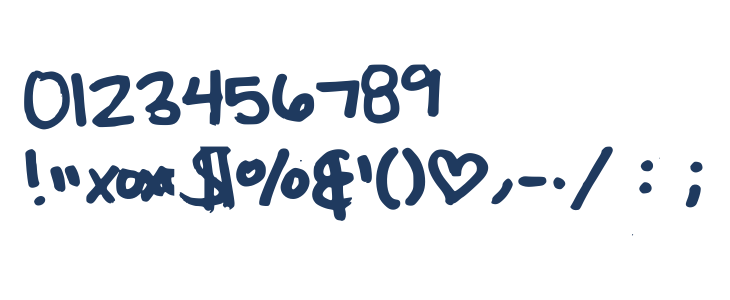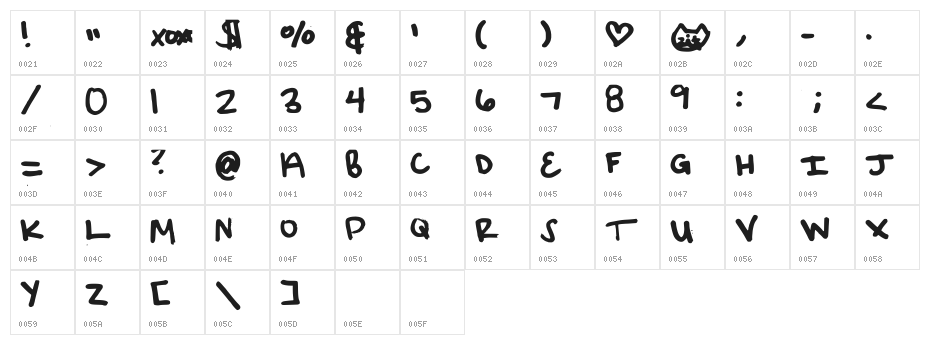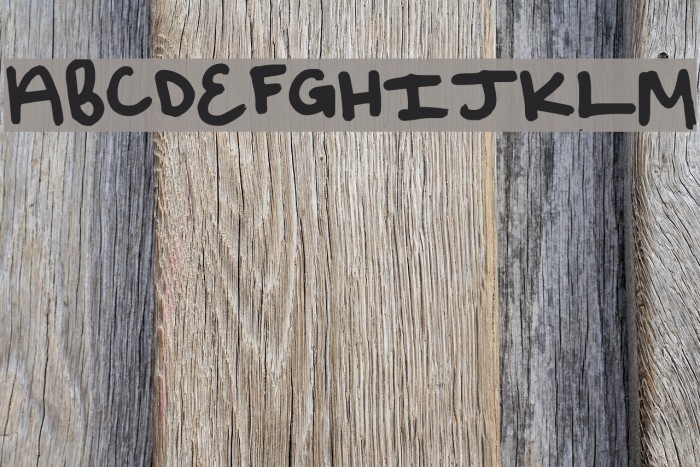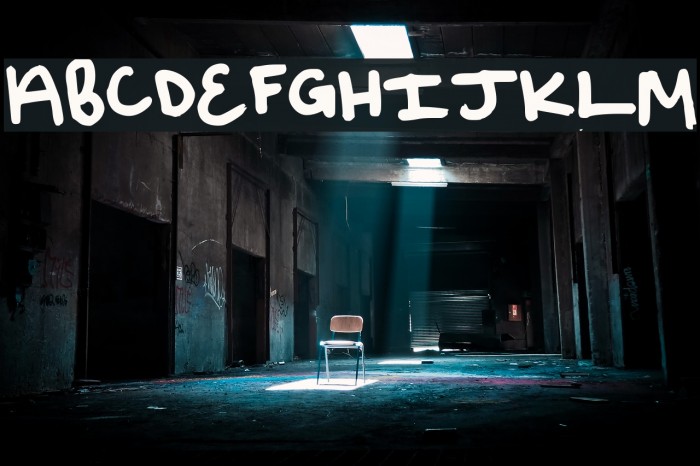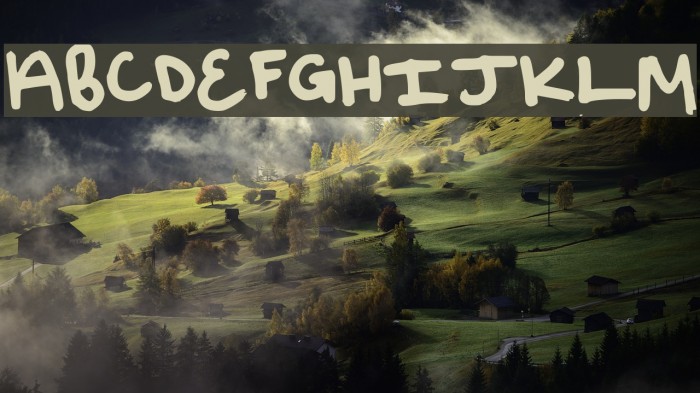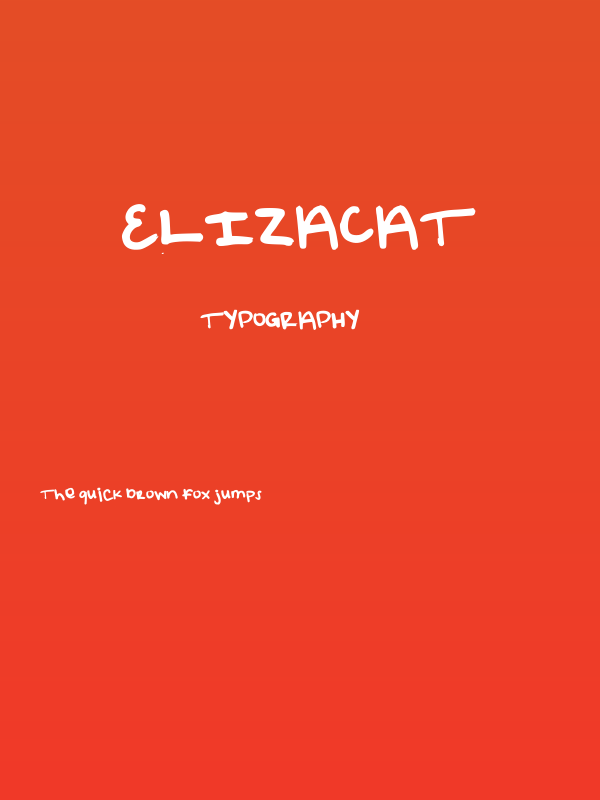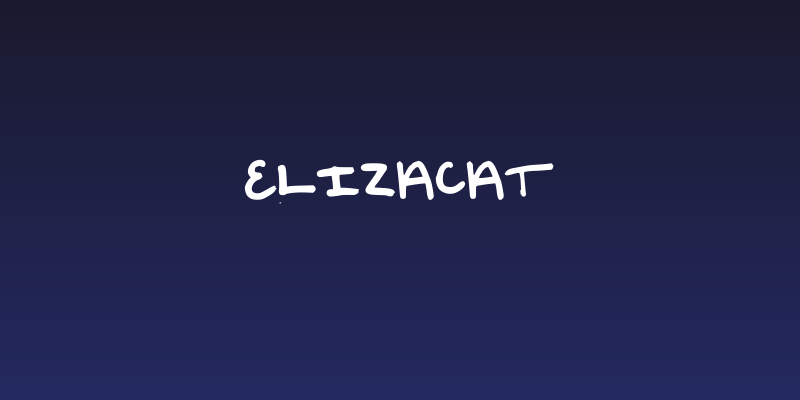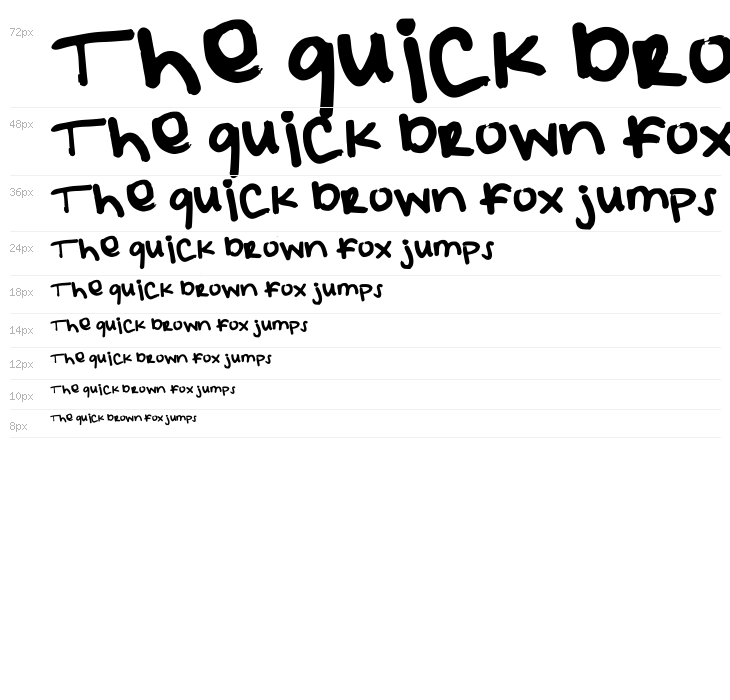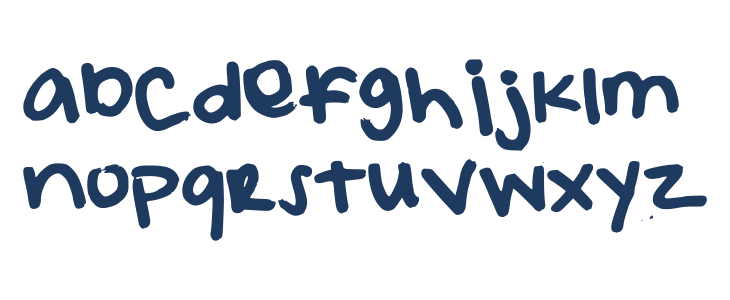
elizacat Font
elizacat Description
This font exhibits a playful and casual handwritten style, characterized by its bold and slightly uneven strokes. The letters are rounded and have a friendly, approachable appearance, making it ideal for informal and creative projects. The uppercase and lowercase letters maintain a consistent style, with a slightly exaggerated, whimsical flair. Numbers and special characters are included, matching the overall playful aesthetic. The font's informal nature makes it suitable for designs that require a personal touch, such as greeting cards, children's books, or playful branding.
Overall StyleCasual, Playful
Use CaseHeadlines, Logos, Informal Text
Proposed ProjectsIdeal for greeting cards, children's books, playful branding, and informal invitations.